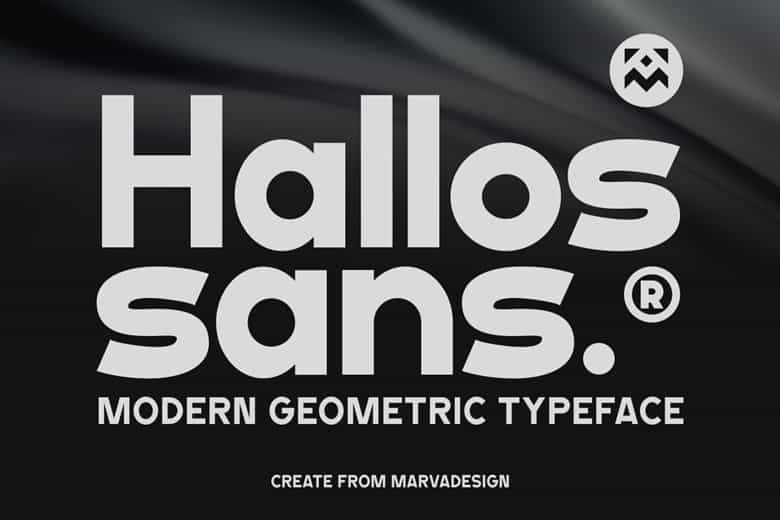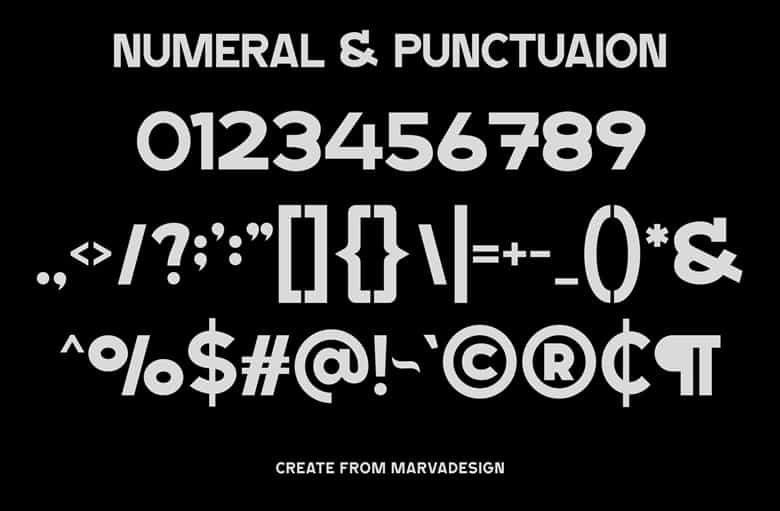
Hallos Sans is a sans serif bold typeface with vigorous lettering, vigorous design, and large thick lines. This font will be very useful in any font collection, for it has the potential to enhance your work in any given project.